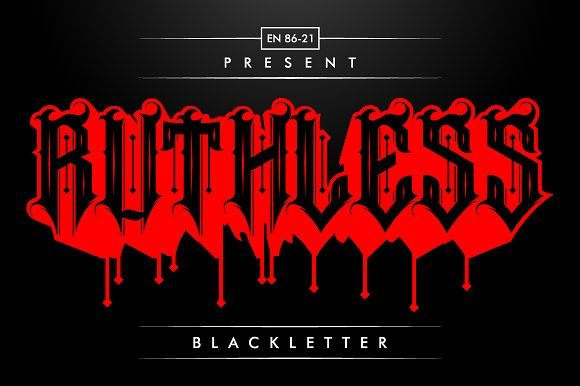
Journey into the Realm of Ruthless: Where Edginess and Style Collide
Prepare to unleash your inner rebel with Ruthless, the captivating blackletter font that exudes untamed individuality. Inspired by the mystique of tattoos and the rebellious spirit of old band logos, Ruthless is the perfect weapon for expressing your bold and unyielding personality.
Embrace the Dark Allure of Ruthless
Ruthless is not just a font; it's an attitude. Its meticulously crafted glyphs, reminiscent of ancient runes, evoke a sense of power and mystery that will leave an indelible mark on your designs. Each stroke and curve is a testament to the font's rebellious spirit, inviting you to break free from the ordinary and embrace the extraordinary.
Ignite Your Creativity with Ruthless
With Ruthless at your fingertips, your creativity will know no bounds. This versatile font lends itself effortlessly to a myriad of design projects, from eye-catching logos and posters to captivating social media graphics and website designs. Let Ruthless be your muse as you explore the depths of your imagination and unleash designs that are as unique and bold as you are.
Ruthless: The Perfect Font for the Unconventional
Ruthless is more than just a font; it's a statement. It's a testament to your individuality, your refusal to conform. Whether you're a graphic designer pushing the boundaries of creativity or a business owner seeking to make a lasting impression, Ruthless is your perfect companion. Embrace its untamed spirit and watch as your designs transform into captivating visual masterpieces.
Ruthless: A Font That Speaks Volumes
With Ruthless, you have the power to convey messages and evoke emotions like never before. Its bold and striking presence commands attention, ensuring that your words and designs leave a lasting impact. Harness the energy of Ruthless to create designs that resonate with your audience, leaving them spellbound and eager for more.
Ruthless: The Gateway to Unforgettable Designs
In a world saturated with mediocrity, Ruthless stands as a beacon of originality and authenticity. It's a font that refuses to blend in, a font that demands to be noticed. With Ruthless as your ally, you have the power to create designs that break free from the mundane and leave an unforgettable impression on all who encounter them.